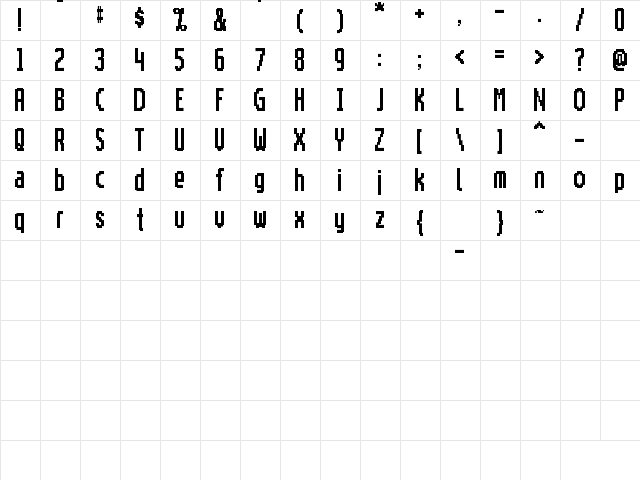
Motorola ScreenType Regular
Design Context for Motorola ScreenType Typeface
Motorola ScreenType takes a measured approach to typography — its balanced proportions and neutral character make it a reliable workhorse for both digital and print work.